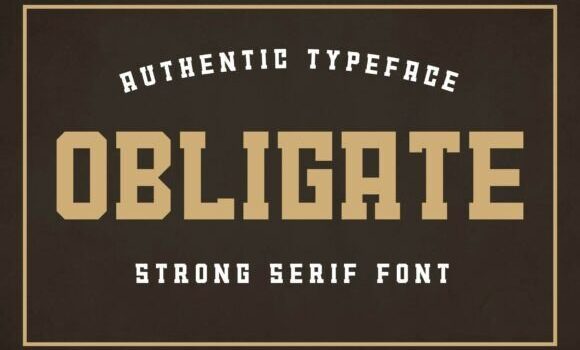
obligate
Obligate Font – Free Download Introduction to Obligate Font Obligate is a powerful slab serif font built to command attention. 📸 Preview Gallery 3 images 📌 Product Name Obligate Font 👤 Author Artiveko 📂 Category Explore ⬇️ Download Obligate Font